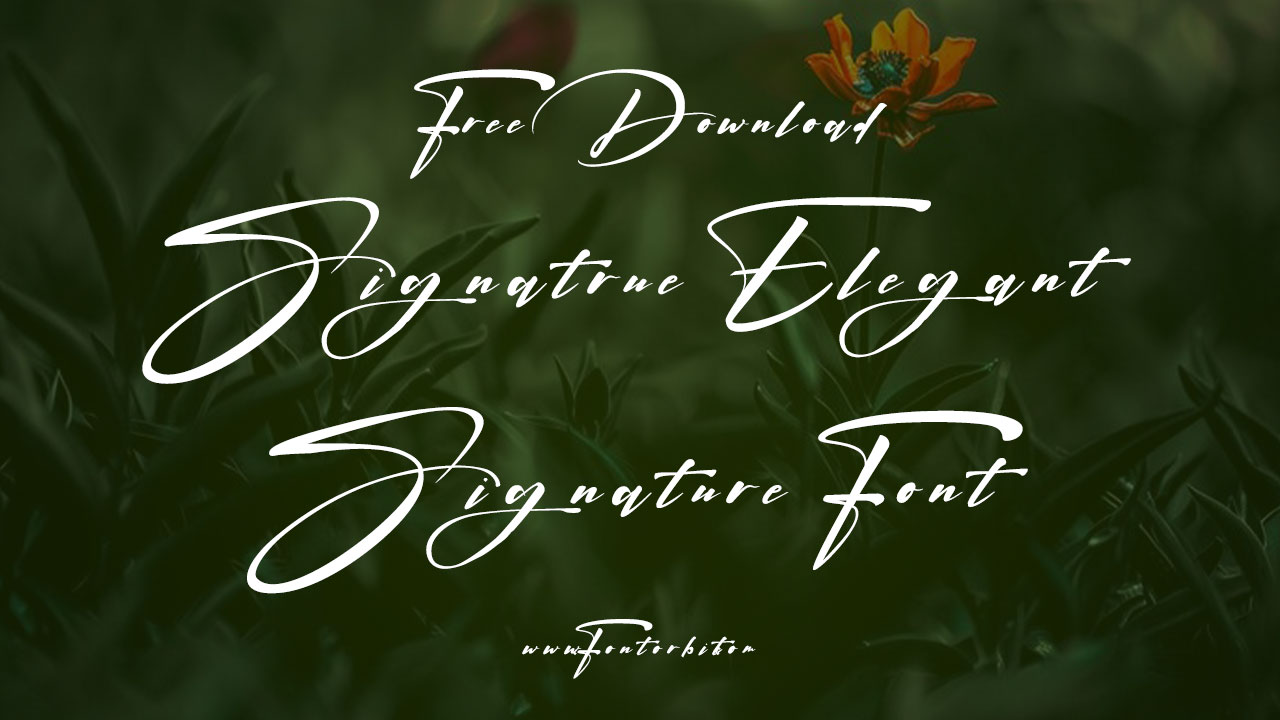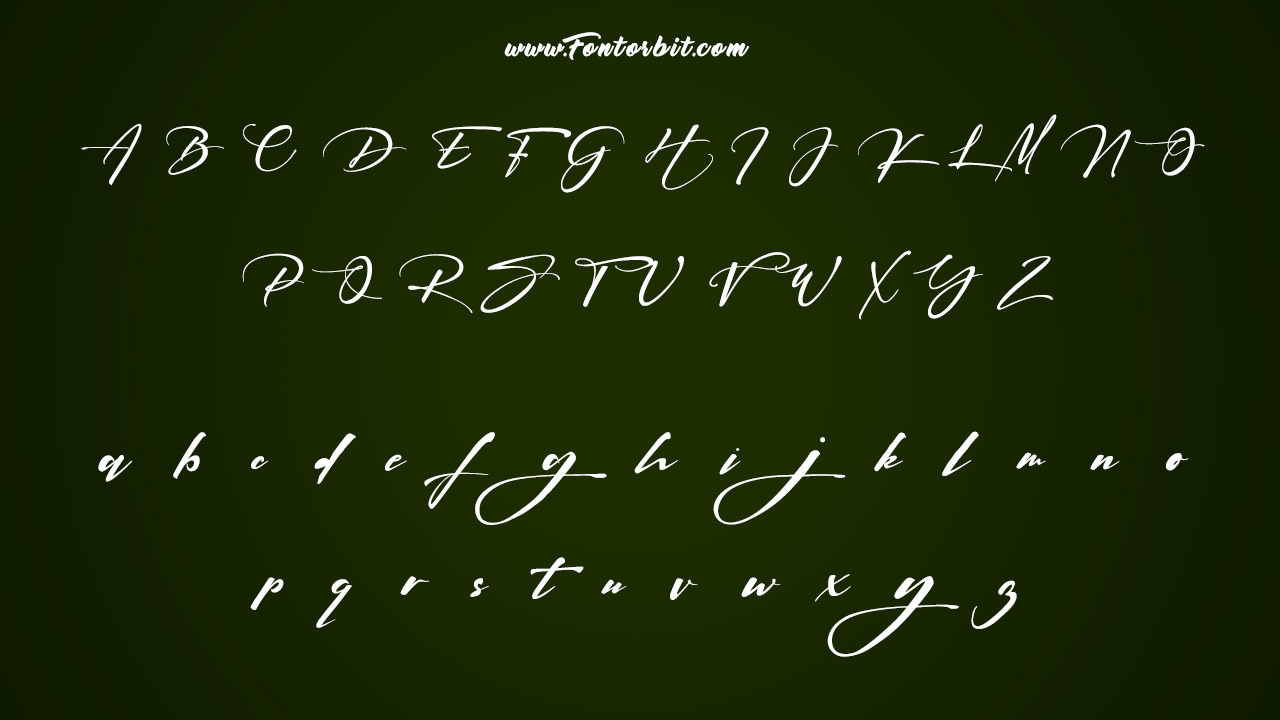
Signatrue Elegant Signature Font is a sophisticated, handwritten typeface designed by Typeline Studio and first released in 2019. Known for its fluid and natural handwriting appearance, Signatrue brings an elegant and refined touch to a wide range of design projects.
Signatrue Font’s design is characterized by its smooth, flowing handwritten style, perfect for creating elegant and stylish visuals. The font family includes:
a. Signatrue Elegant Signature Regular
| Style: | Calligraphy |
Signatrue Elegant Signature Font’s refined, handwritten style makes it a great choice for both formal and creative projects. Its elegant look is ideal for a variety of applications where a sophisticated and personal touch is desired. Common uses include:
- Branding Projects
- Wedding Designs
- Social Media Posts
- Advertisements
- Product Packaging
- Photography Watermarks
- Stationery
Signatrue Elegant Signature Font embodies a sophisticated, handwritten style that adds a touch of elegance to various designs. While it may not be suited for highly formal or traditional documents, it excels in applications where a refined, elegant look is desired.
Pair Signatrue Font with modern, clean fonts or design elements to create a striking contrast and enhance its visual appeal.
2.What Are The Advantages Of Using Signatrue Fonts In Design Projects?
Signatrue fonts offer a unique, personal touch that adds elegance and sophistication to both digital and print designs.
3.How To Create A Font Pairing With Signatrue Fonts And Serif Fonts?
Pair Signatrue fonts with serif fonts by choosing contrasting styles—use Signatrue for headings and a classic serif font for body text to create visual hierarchy and elegance.
4.What Are The Best Signatrue Fonts For Digital Art Projects?
Best Signatrue fonts for digital art include pairing it with simple sans-serif fonts like Helvetica or Arial for clean and elegant compositions that stand out on screens.
5.How To Create A Font Combination With Signatrue Fonts And Script Fonts?
Combine Signatrue fonts with other script fonts by using Signatrue for main headings and complementary script fonts for subheadings or accents to maintain a cohesive, elegant design.